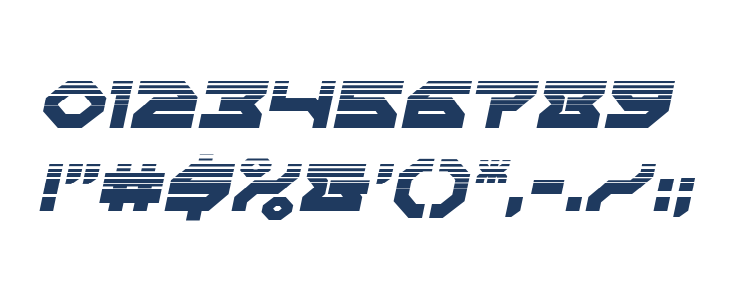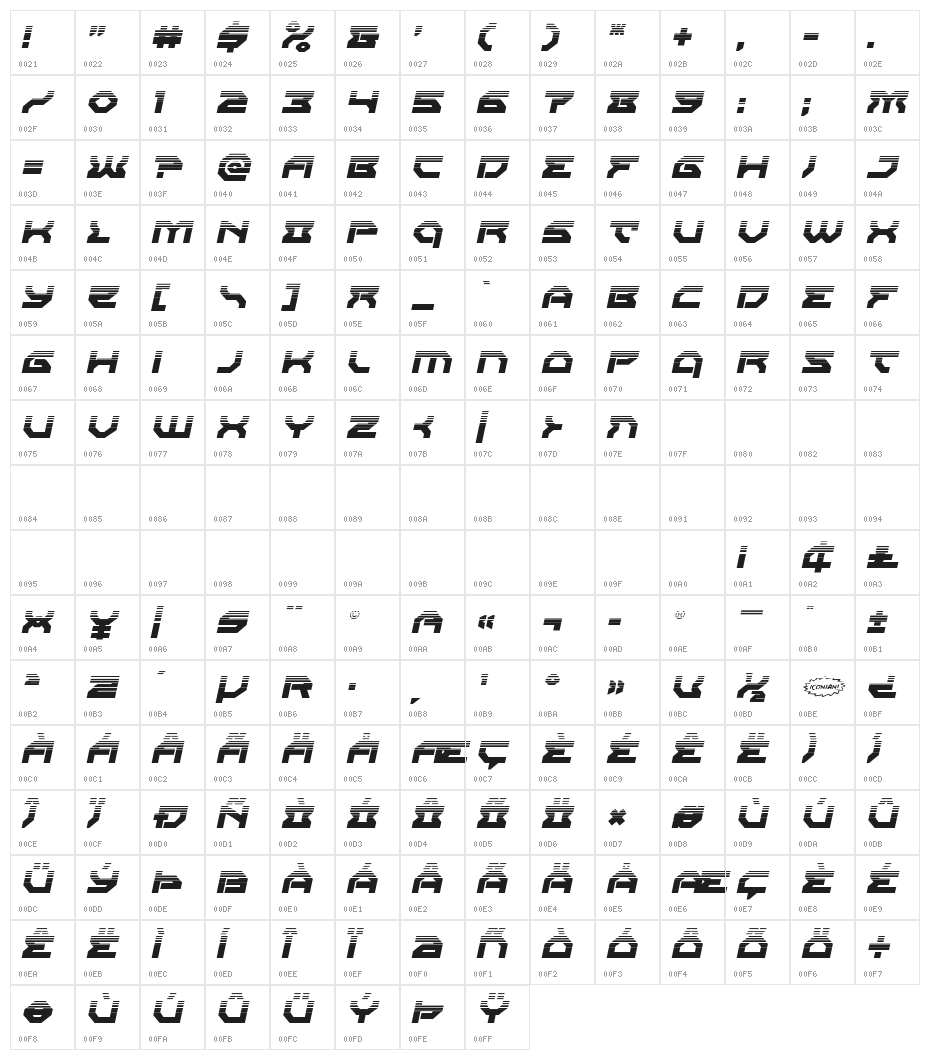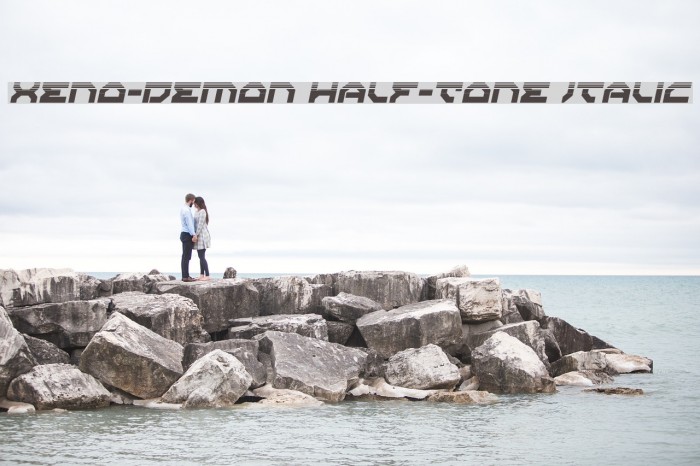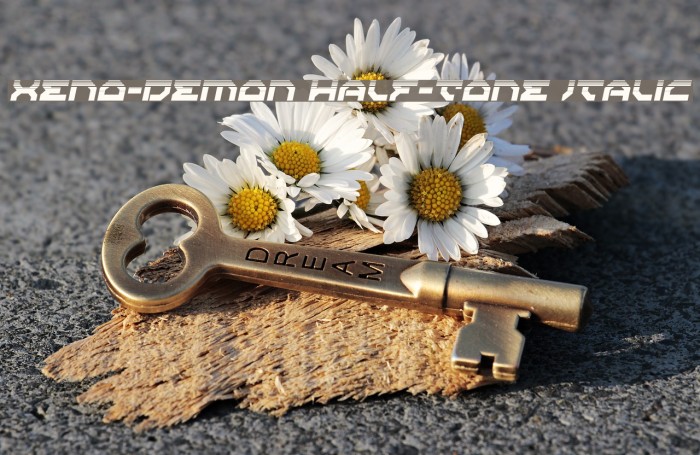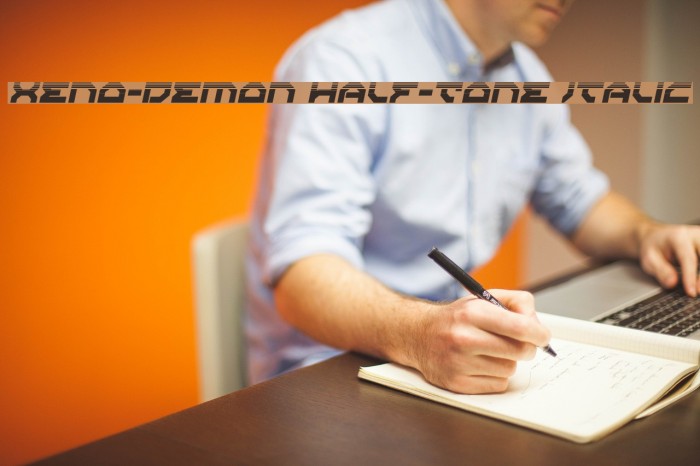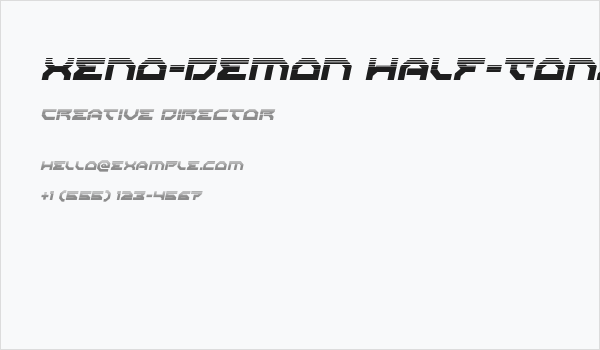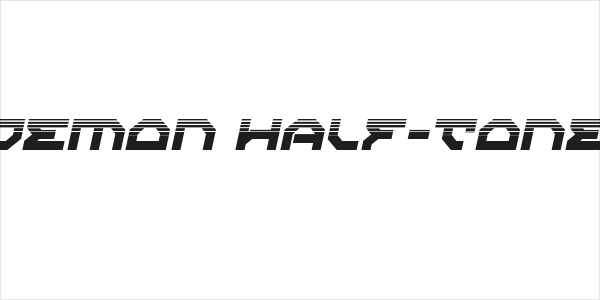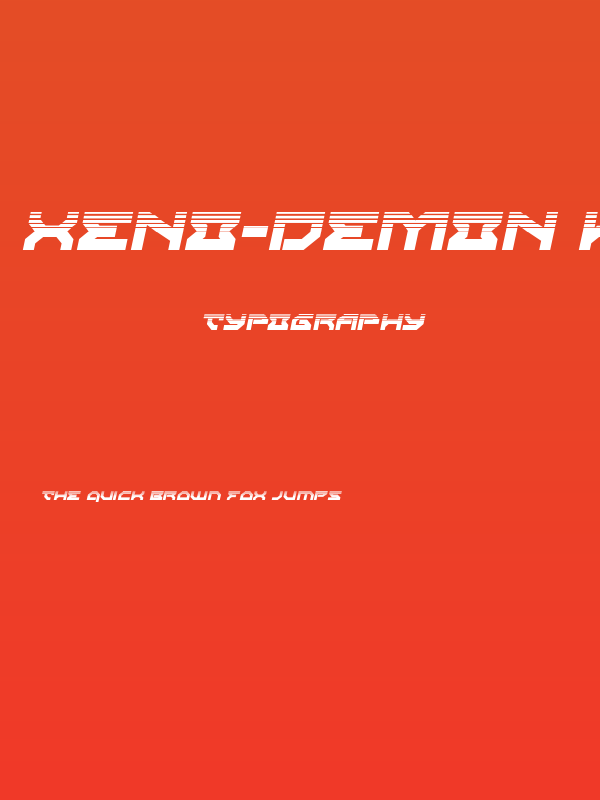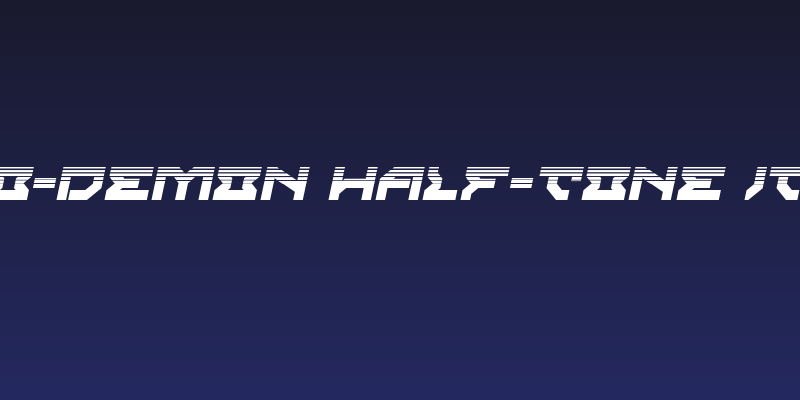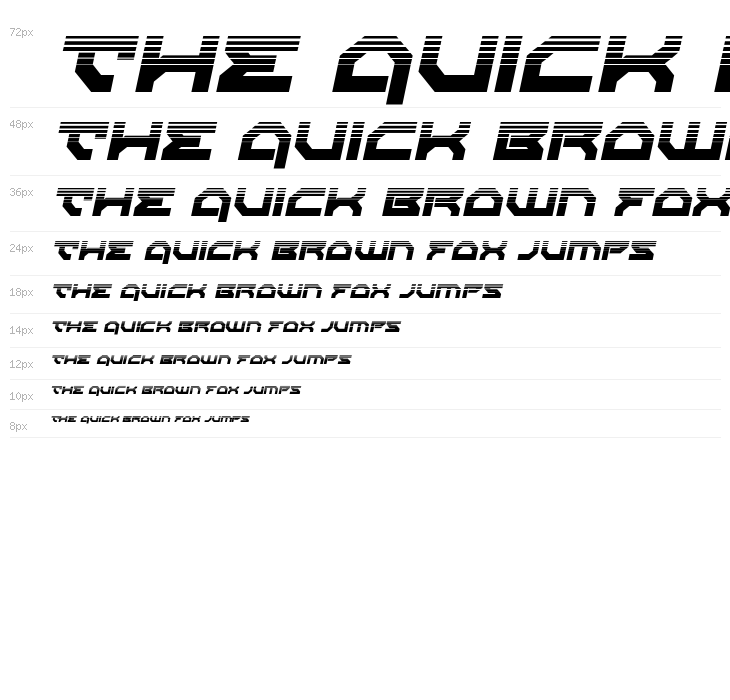
Xeno-Demon Half-Tone Italic Font
Xeno-Demon Half-Tone Italic Description
This font features a bold, futuristic design with a distinct half-tone effect that adds a dynamic, edgy feel. The characters are angular and geometric, with sharp edges and a consistent slant that gives an italicized appearance. The use of horizontal lines within each character creates a sense of movement and depth, enhancing its modern aesthetic. The font is highly stylized, making it ideal for projects that require a strong visual impact. Its unique style is perfect for sci-fi themes, technology-related designs, or any creative work that seeks to stand out with a bold statement.
| Overall Style | Futuristic, Modern |
| Proposed Projects | Ideal for sci-fi themes, tech branding, video game titles, and creative posters. |